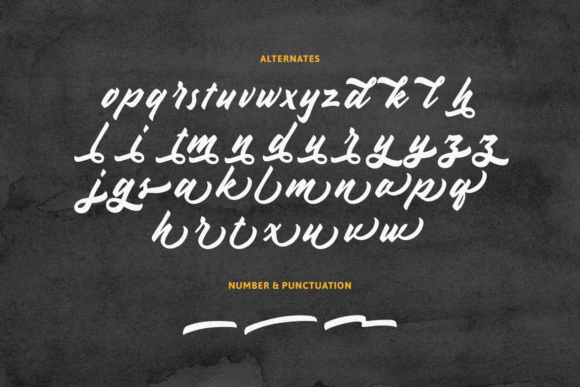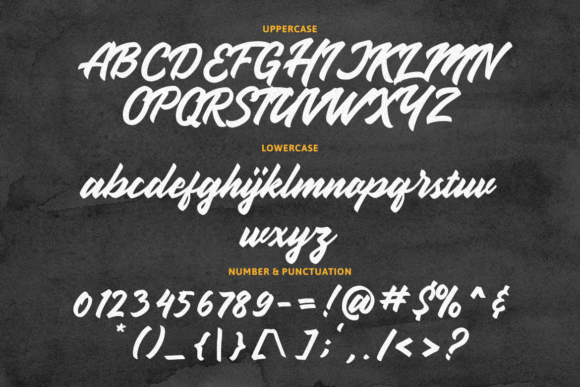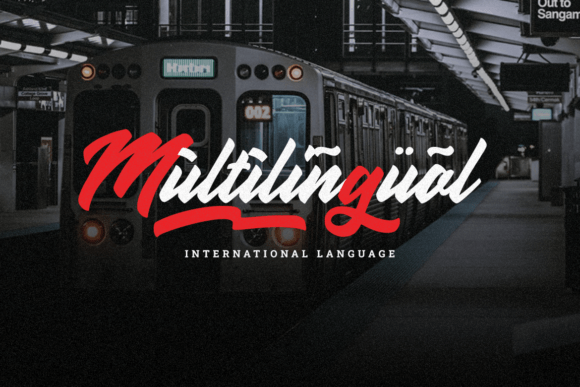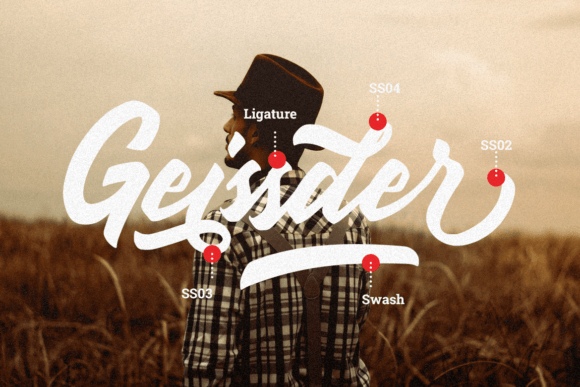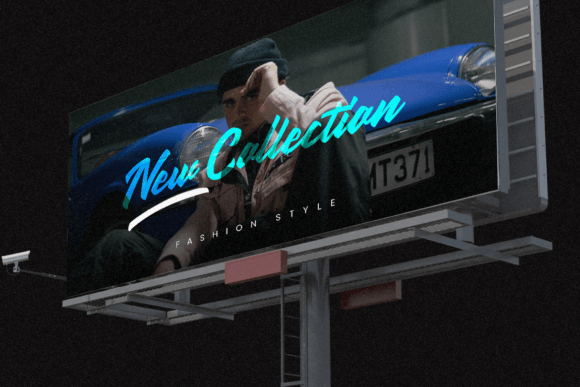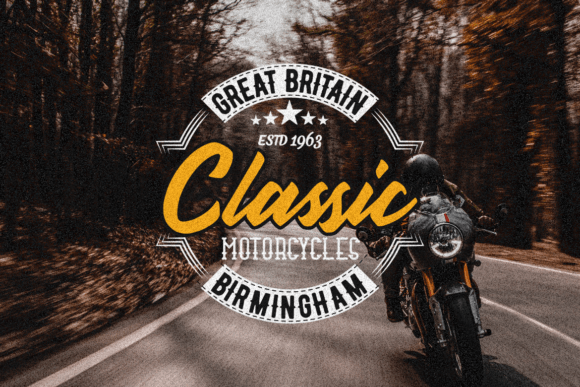
Introducing Handbrake Font: The Timeless Vintage Bold Brush Script
Are you a designer or crafter looking for a font that adds a touch of vintage charm to your projects? Look no further than Handbrake Font, a bold brush script font that exudes a sense of nostalgia and sophistication. With its smooth, flowing lines and bold lettering, Handbrake is the perfect choice for a wide range of design applications.
The Characteristics of Handbrake Font
Handbrake Font is a unique and eye-catching font that is characterized by its bold, brush script style. The font features smooth, flowing lines that give it a sense of movement and energy. The letters are carefully crafted to resemble handwritten script, with subtle variations in line width and texture that give it a organic, human feel.
One of the standout features of Handbrake Font is its vintage aesthetic. The font has a distinctly retro feel that is reminiscent of classic designs from the past. This makes it perfect for designers and crafters who are looking to add a touch of nostalgia to their projects.
Uses for Handbrake Font
Handbrake Font is a versatile font that can be used in a wide range of design applications. Here are some ideas to get you started:
- Branding projects: Use Handbrake Font to create bold, eye-catching logos and branding materials that make a statement.
- Wedding designs: Add a touch of vintage romance to your wedding designs with Handbrake Font, perfect for invitations, stationery, and more.
- Social media posts: Use Handbrake Font to create eye-catching social media posts that stand out from the crowd.
- Advertisements: Add a touch of sophistication to your advertisements with Handbrake Font, perfect for print or digital ads.
- Product packaging: Use Handbrake Font to create bold, eye-catching packaging that stands out on store shelves.
- Product designs: Add a touch of vintage charm to your product designs with Handbrake Font, perfect for labels, tags, and more.
- Photography: Use Handbrake Font to create beautiful watermarks or overlays for your photographs.
- Invitations: Create beautiful, vintage-inspired invitations with Handbrake Font, perfect for parties, events, and more.
- Stationery: Add a touch of elegance to your stationery with Handbrake Font, perfect for letters, cards, and more.
Why Choose Handbrake Font?
So why choose Handbrake Font for your design projects? Here are just a few reasons:
- Unique and eye-catching: Handbrake Font is a bold, eye-catching font that is sure to grab attention.
- Vintage aesthetic: The font’s vintage aesthetic adds a touch of nostalgia and sophistication to any design.
- Versatile: Handbrake Font can be used in a wide range of design applications, from branding and advertising to wedding designs and product packaging.
Handbrake Font is a timeless vintage bold brush script font that is perfect for designers and crafters looking to add a touch of nostalgia and sophistication to their projects. With its smooth, flowing lines and bold lettering, Handbrake Font is sure to grab attention and leave a lasting impression. Whether you’re working on a branding project, wedding design, or product packaging, Handbrake Font is the perfect choice.